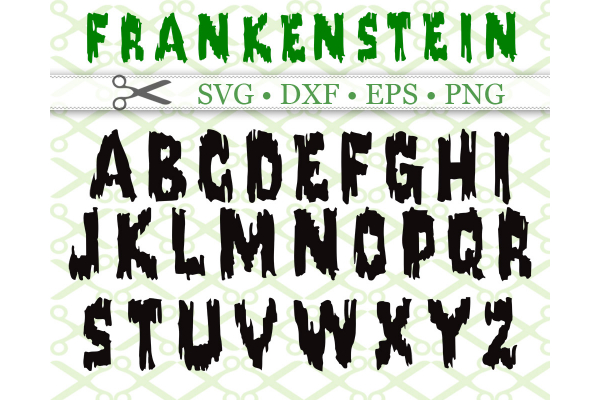
FRANKENSTEIN SVG FONT, In File Formats SVG, DXF, EPS & PNG. Upper case letters as shown in ad picture. There are NO lower case or numbers in this set. This is an all caps set made from a distressed font.